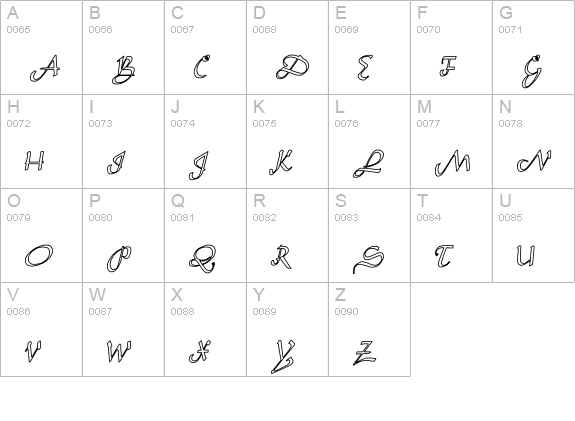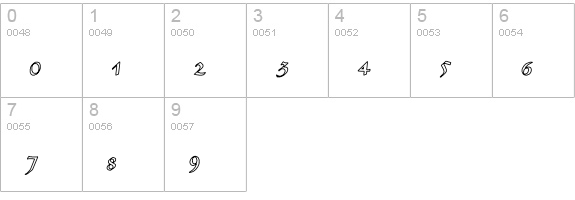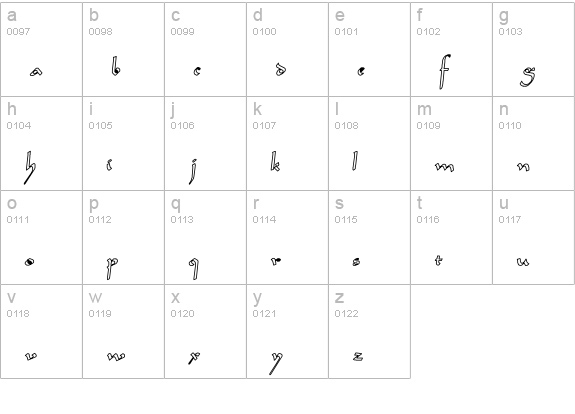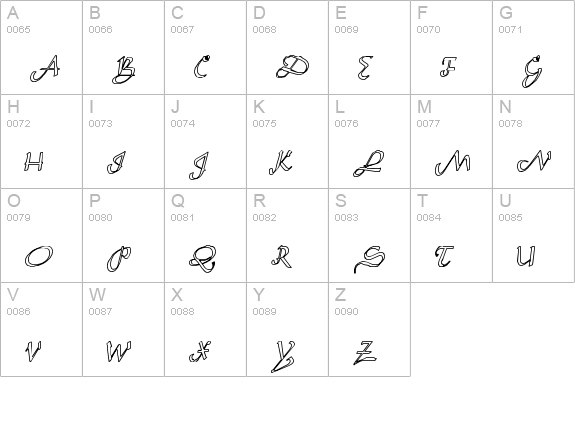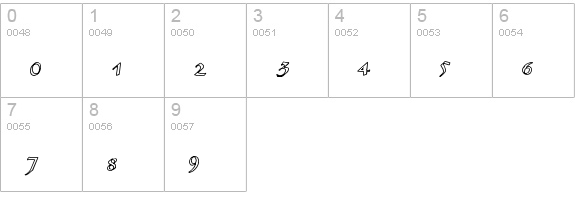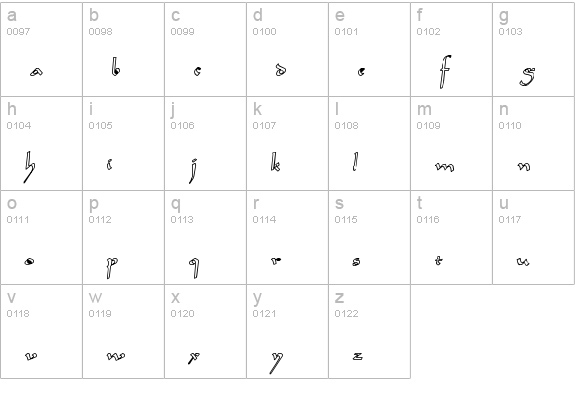
Sahara-Normal Hollow is the standard, neutral variant in the Sahara typeface family \xE2\x80\x94 well suited to general body text, paragraphs, and standard typographic work.
Sahara-Normal Hollow is a magnificent font that effortlessly blends elegance and uniqueness. With its striking hollow design, this font is perfect for adding a touch of sophistication to any project. The carefully crafted curves and intricate details of Sahara-Normal Hollow make it a true standout among other fonts. This font is not only visually stunning, but it also offers great versatility. Whether you are designing a logo, creating eye-catching headlines, or working on a branding project, Sahara-Normal Hollow will add that extra layer of style and finesse. One of the best things about Sahara-Normal Hollow is that it is available for free! That's right, you can download this font without any cost. Simply visit FontsMarket.com to access this incredible typeface and start using it in your designs today. Don't miss out on the opportunity to enhance your creative endeavors with Sahara-Normal Hollow. Download it now and unlock a world of possibilities for your design projects.